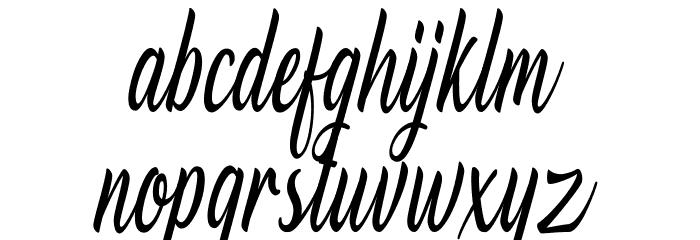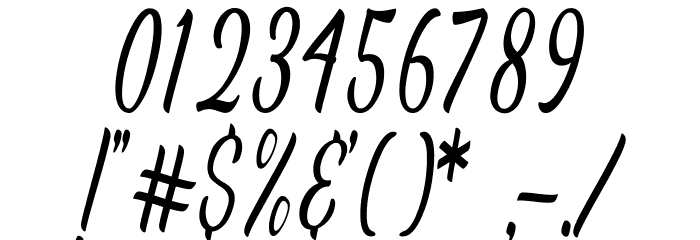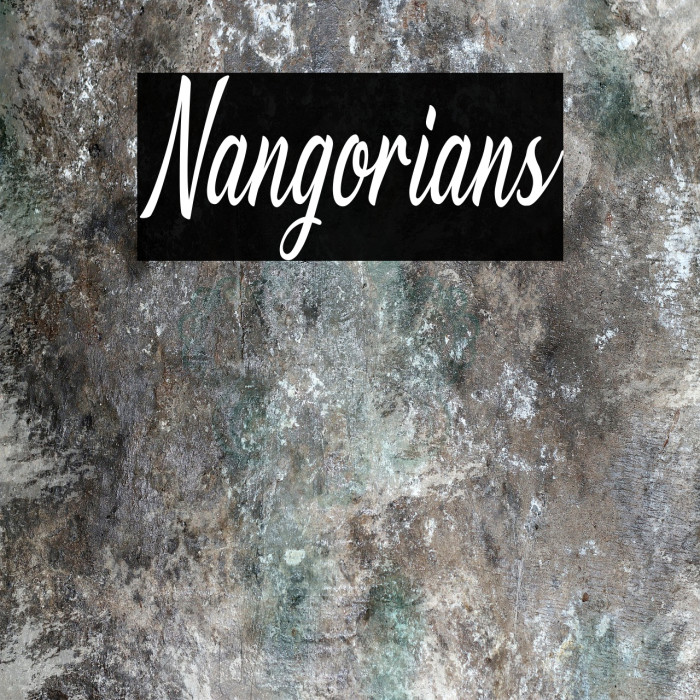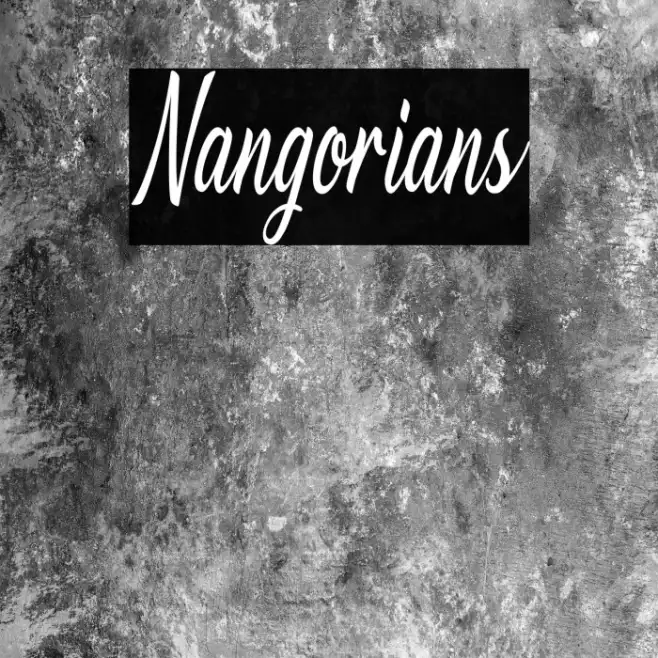
Nangorians Font
This font features a dynamic and flowing script style, characterized by its elegant and slightly slanted letters. The uppercase letters are tall and graceful, with a consistent stroke width that gives them a refined appearance. The lowercase letters maintain a cohesive look with their smooth curves and connected strokes, enhancing the font's fluidity. Numbers and special characters are designed to match the overall aesthetic, providing a harmonious look across all elements. This font's design is both stylish and versatile, making it suitable for a variety of creative applications.
A dynamic and elegant script font with flowing, slightly slanted letters.
- Proposed Projects: Ideal for wedding invitations, branding, logo design, and elegant stationery.
- Category: Script
- Overall Style: Elegant
- Use Case: Logos, Invitations, Branding